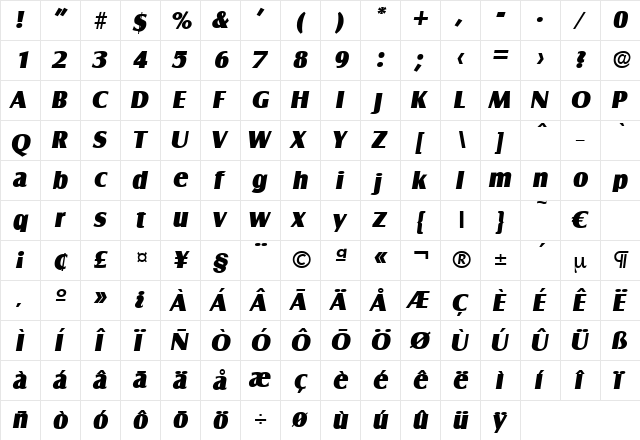
Salzburg-ExtraBoldIta Regular
Design Context for Salzburg-ExtraBoldIta Typeface
Salzburg-ExtraBoldIta takes a measured approach to typography — its balanced proportions and neutral character make it a reliable workhorse for both digital and print work. The heavy weight commands attention and anchors typographic hierarchies.